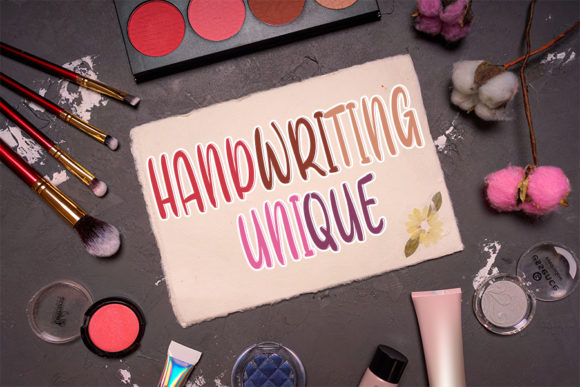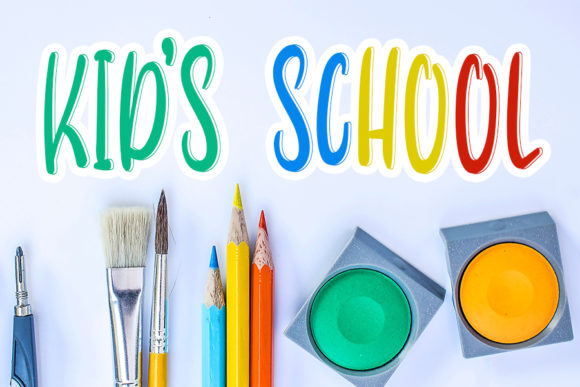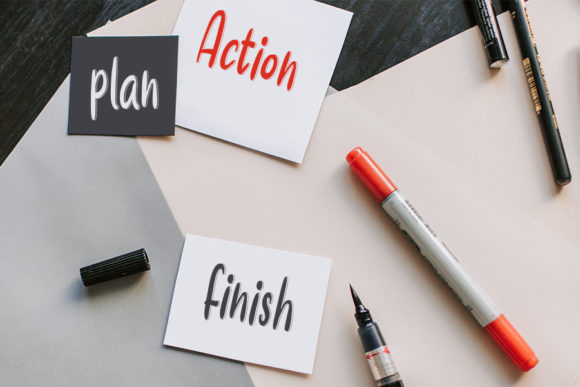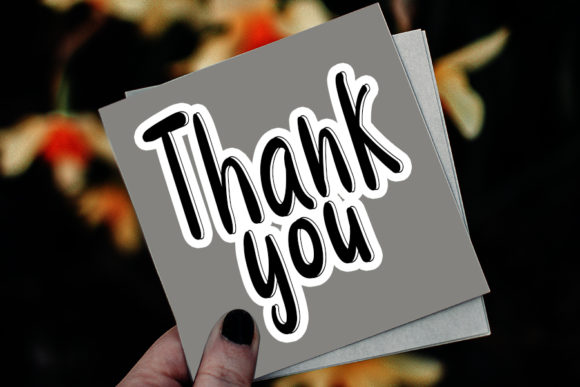
Introduction to Hand for Drawing Font
Remember that moment when you were brainstorming ideas for your next creative project, and you wanted to give it a personal touch? You reached for your favorite pen and paper, letting your imagination run wild. But, sometimes, even the most beautiful hand-drawn designs can be hard to replicate digitally. That’s where the Hand for Drawing Font comes in – a simple and bold handwritten font that captures the essence of your freehand creations.
As a designer, you know the value of having a reliable design resource that can elevate your projects to the next level. With the Hand for Drawing Font, you can achieve a high-quality, handwritten look without the hassle of creating it from scratch. Plus, with its transparent background, you can easily combine it with other design elements to create stunning visuals.
Key Features of Hand for Drawing Font
- Unique, hand-drawn design perfect for creative projects and artistic endeavors
- Includes a range of glyphs and characters, making it suitable for various design applications
- Designed as a design resource for creatives, perfect for adding a personal touch to various design projects
Honest Review: Hand for Drawing Font
- ✨ The font is incredibly versatile and can be used for a wide range of design applications, from children’s books to signage and more.
- ✨ The transparent background makes it easy to use on any background, giving me the freedom to get creative with my designs.
- ✨ The font is easy to read, even in smaller sizes, which is a must for any design project.
- ⚠️ The font may not be suitable for professional or formal projects, as it has a more casual, handwritten feel.
- ⚠️ The font can be a bit overwhelming if used in large quantities, so be sure to use it sparingly.
Hand for Drawing Font
The Hand for Drawing Font is a unique and versatile design resource perfect for creative projects. This high-quality font features a transparent background, making it easy to integrate into various design platforms.
Tips for Getting the Most Out of Hand for Drawing Font
Use the Hand for Drawing Font to add a personal touch to your designs.
Experiment with different font sizes and colors to create a unique look.
Combine the Hand for Drawing Font with other design elements to create a cohesive and engaging design.
Common Use Cases for Hand for Drawing Font
The Hand for Drawing Font is perfect for:
Artistic projects, such as illustrations and paintings.
Designing creative and engaging social media posts.
Creating custom invitations and event materials.